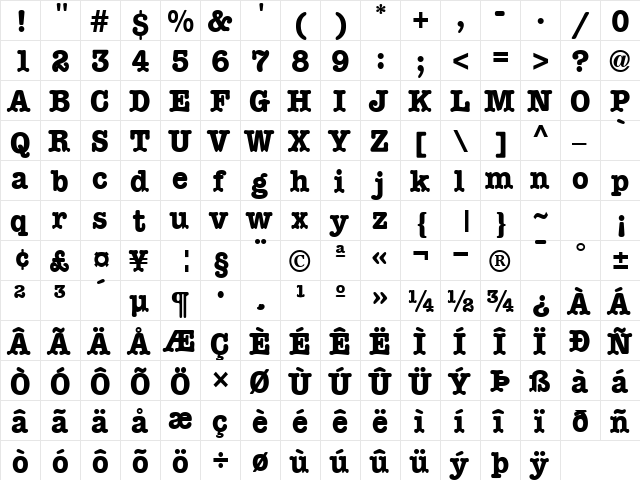
BocciText13 Regular
Design Context for BocciText13 Typeface
BocciText13 takes a measured approach to typography — its balanced proportions and neutral character make it a reliable workhorse for both digital and print work.
Pro Tip: Pair BocciText13 with a font of contrasting weight or personality to build a more expressive typographic hierarchy.